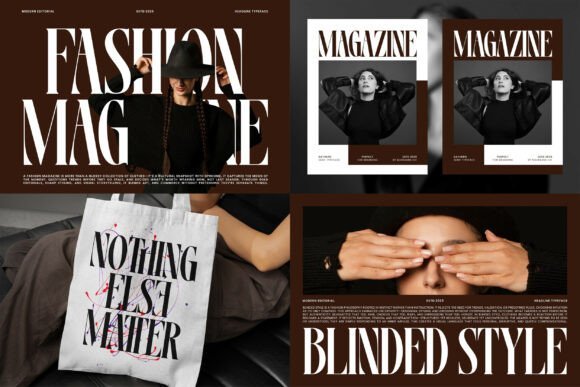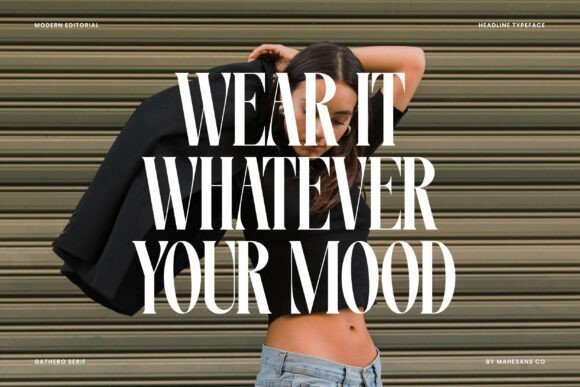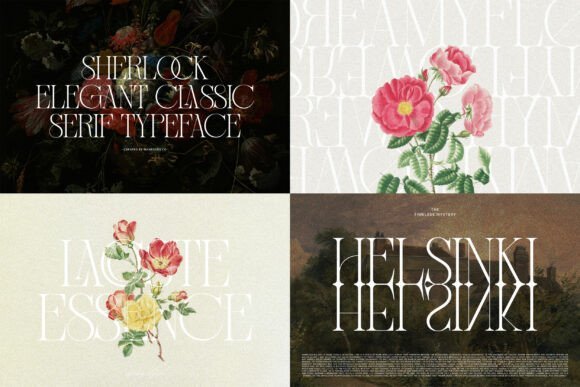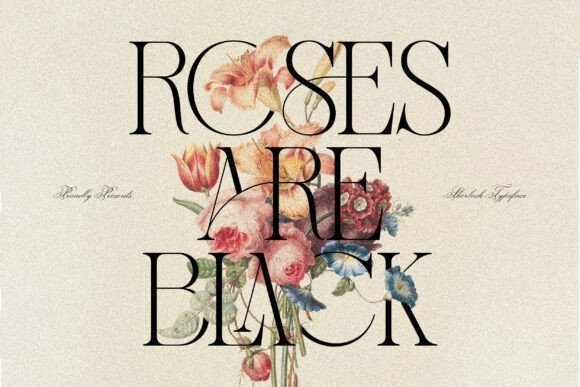
Headline Serif Bundle Font
This exclusive bundle brings together 12 of our best-selling headline serif fonts, crafted for designers who want impact, elegance, and versatility in one powerful collection.